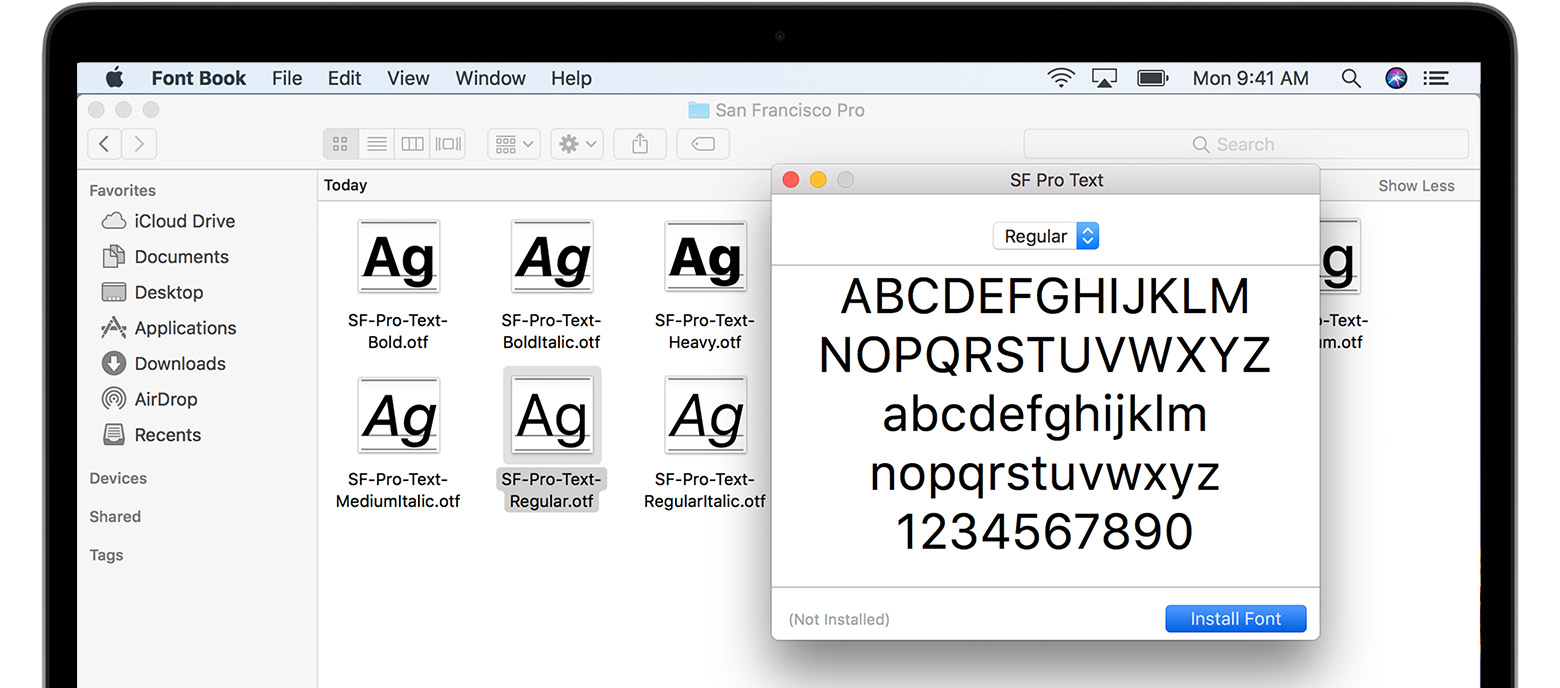
Sf ui text for text 19 points or smaller, and sf ui display for text 20 points or larger. How to intall the font in:
The sf pro includes nine weights, variable optical sizes, and a rounded version for optimum legibility.
Free fonts often have not all characters and signs, and have no kerning pairs (avenue ↔ a venue, tea ↔ t ea). Sf pro text, pingfang sc, avenir next, roboto, uber and more. San francisco is the system font on ios.
Dowonload this fonts for graphic design , web fonts. Use sf pro text for text 19 points or smaller, and sf pro display for text 20 points or larger. Please note that it is forbidden to use this typeface for your commercial project.
Instantly share code, notes, and snippets. Sf pro features nine weights, variable optical sizes for optimal legibility, and includes a rounded variant. I want to help the project!
This feminine typeface has extensive opentype support including 1 additional stylistic sets, stylistic alternates, lining figures and standard ligatures giving you plenty of options to allow you to create something truly unique and special. Sf pro supports over 150 languages across latin, greek, and cyrillic scripts. The san francisco font by apple used in the apple watch, ios 9, and os x el capitan.
The entire collection of san francisco pro fonts. When you use san francisco for text in labels and other interface elements, carplay automatically applies. Please share the link with friends, this will greatly help the development of this project.
React native will not automatically use a different font variant based on the font size, but the right variant should be explicitly set when setting the font. Installing source code pro fonts in ubuntu. Merge pull request #3 from berrely/master.
Sf pro th regular version 001.002 font (font family name: This neutral, flexible, sans serif typeface is the system font for ios, ipad os, macos and tvos. Coded like this in css.
37 professional sf pro icons fonts to download. San francisco (sf) is the carplay system typeface. Sf pro text, pingfang sc, avenir next.